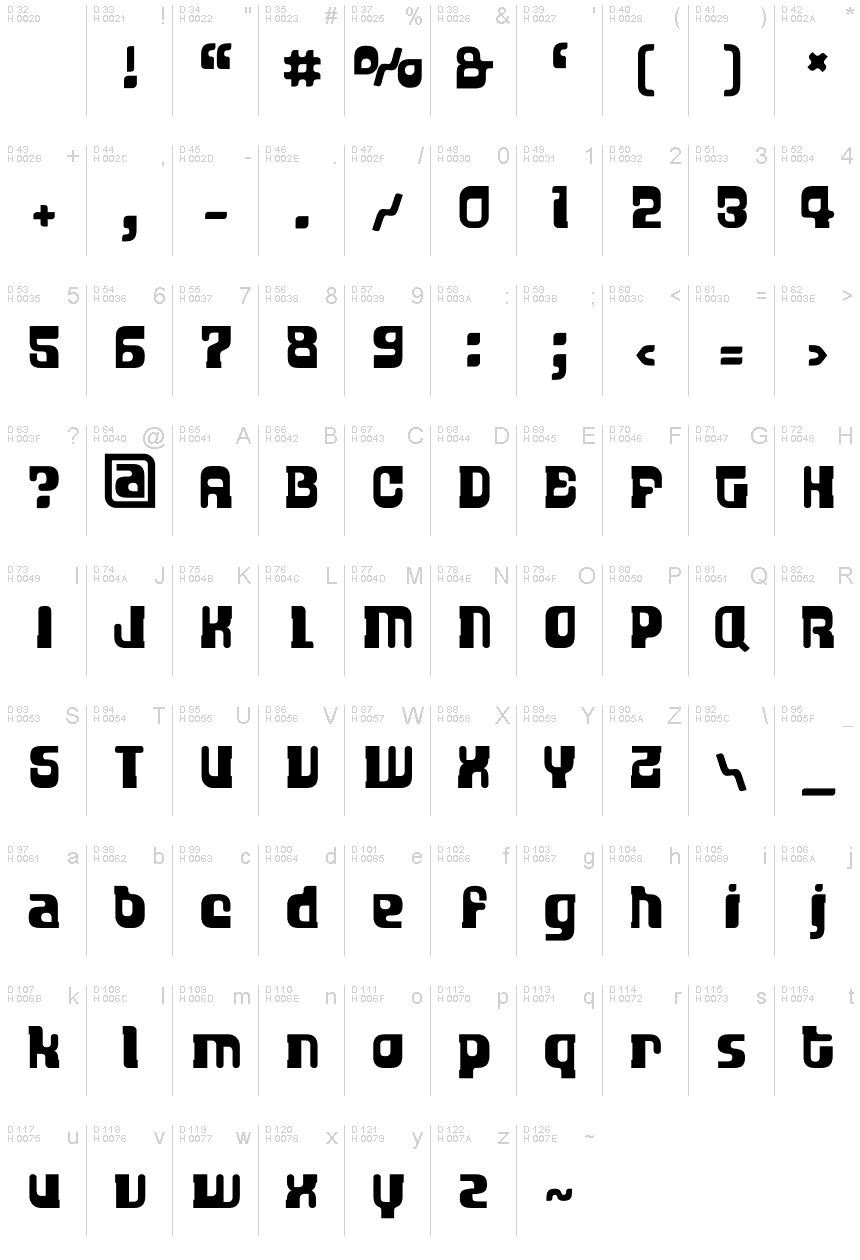
Retro 60 Awesome
Retro 60 Awesome is the ultimate display font for those looking to add a groovy vintage touch to their projects. Bold and striking, this typeface boasts a unique 60s aesthetic that's perfect for retro-themed designs, posters, logos, and more. Whether you're creating a nostalgic brand identity or you want to bring some old school charm to your marketing materials, Retro 60 Awesome is the perfect choice. With its bold weight and groovy style, this font will make your message pop and capture the attention of your audience. Embrace the past with Retro 60 Awesome – it's time to get groovy!
Retro 60' Awesome Font
60s Retro Font is a cool otf font that you can use for vintage designs.